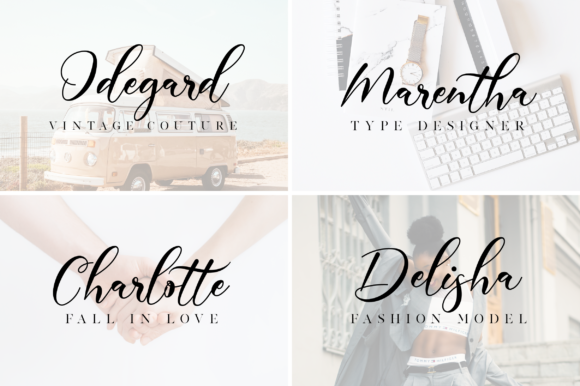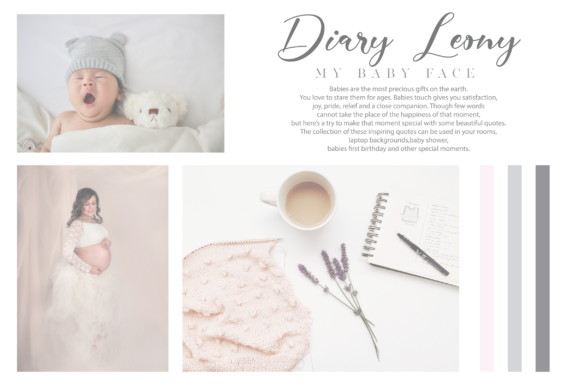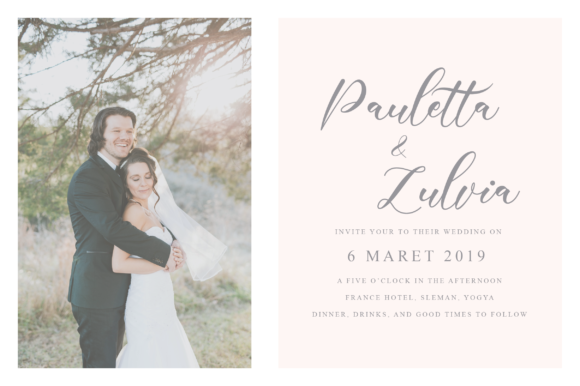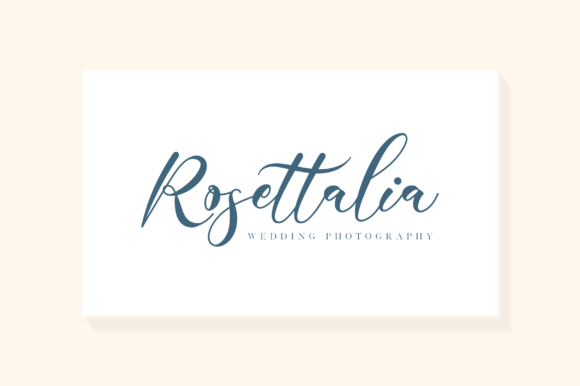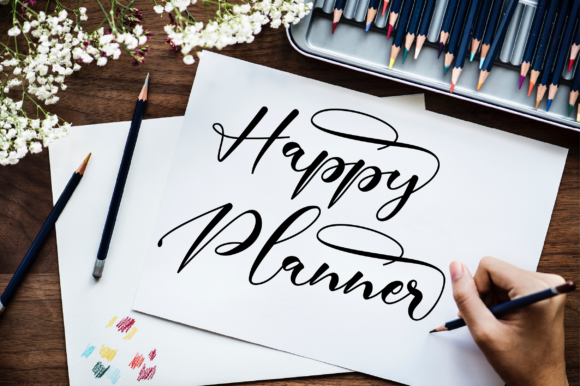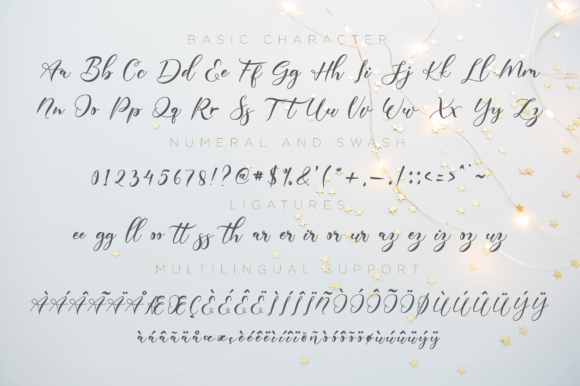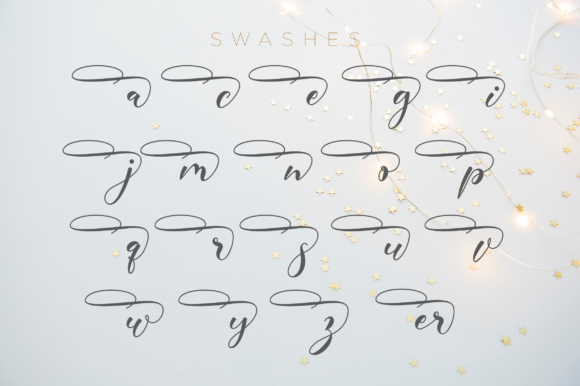
Poppy Shower Font
About Poppy Shower Font
Poppy Shower is a beautiful script font with a classy, elegant, and modern look! It’s perfect for any design that needs an authentic touch.